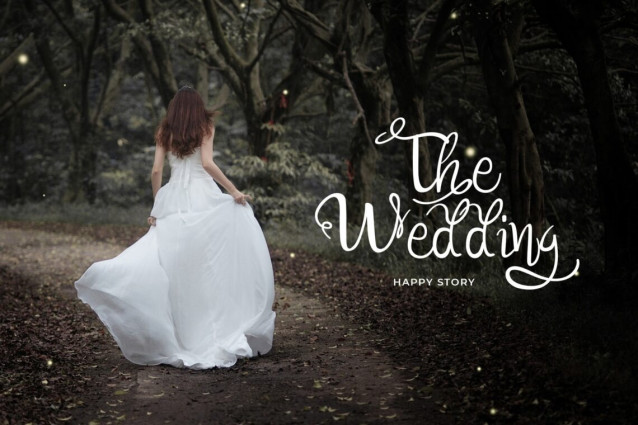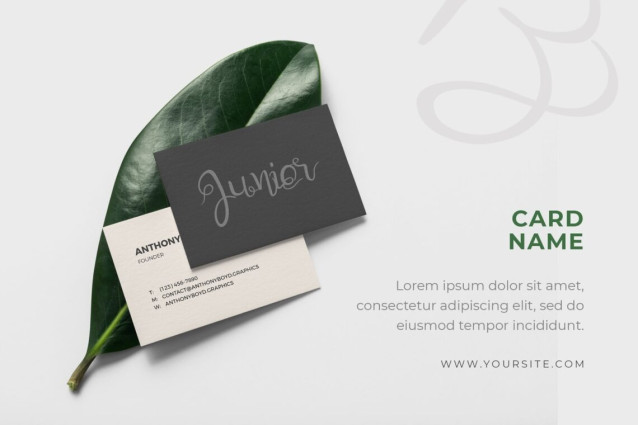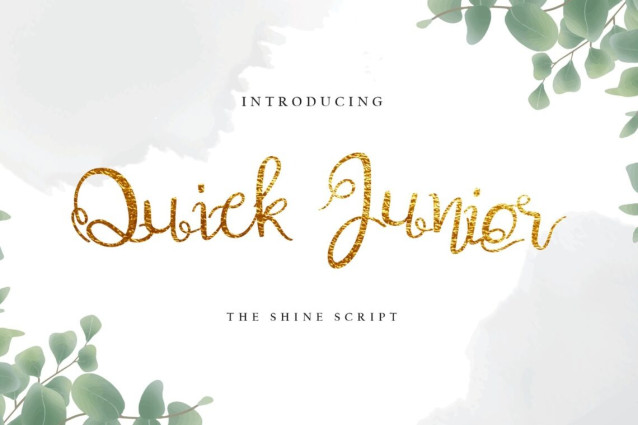
Quick Junior Decorative Calligraphy is a signature style font and enters the script family. This includes an elegant and natural final swash that makes it perfect to give your design a luxurious feel. There is no problem with long or short texts, so this font can be used in various design works. The two included styles can be combined together perfectly but are also perfect as great standalone’s. This font is perfect for branding, photography, invitations, quotes, watermarks, advertisements, product designs, labels, product packaging, and much more!.